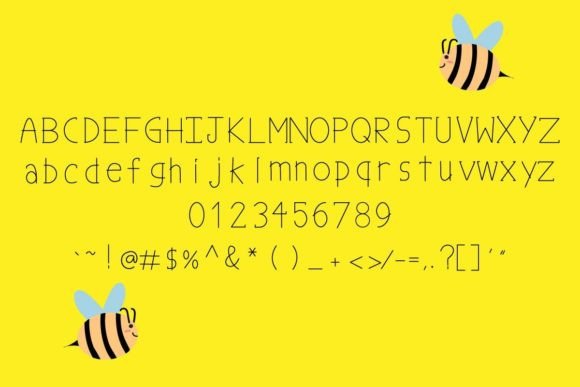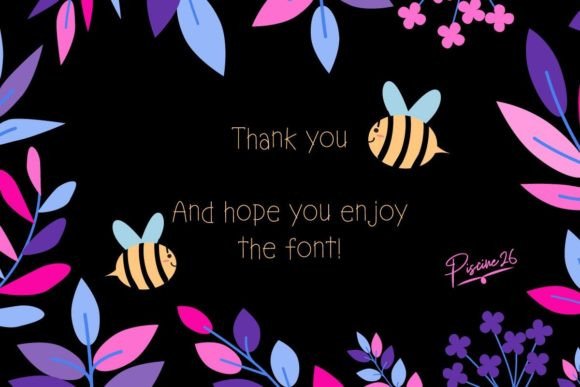
BSting Font: Add a Touch of Whimsy to Your Designs
Are you tired of using the same old fonts in your designs? Do you want to add a touch of personality and whimsy to your projects? Look no further than BSting, a cute, thin, and simple handwritten font that’s sure to make your work stand out. Inspired by the bee’s sting, BSting is the perfect choice for designers and crafters looking to add a little extra something special to their creations.
The Inspiration Behind BSting
BSting is more than just a font – it’s a statement. Inspired by the humble bee’s sting, this font is designed to give your projects that extra push they need to stand out from the competition. The bee’s sting is often seen as a symbol of creativity, industry, and community, making BSting the perfect choice for designers and crafters who want to add a touch of warmth and personality to their work.
What Makes BSting So Special?
So, what sets BSting apart from other fonts? Here are just a few things that make this font so special:
- Cute and playful: BSting is a font that’s sure to put a smile on your face. Its thin, handwritten lines and playful curves make it the perfect choice for designers and crafters who want to add a touch of whimsy to their work.
- Simple and elegant: Despite its playful nature, BSting is also a surprisingly elegant font. Its simple lines and classic curves make it perfect for use in a wide range of projects, from invitations and greeting cards to blog posts and social media graphics.
- Highly versatile: BSting is a font that’s suitable for use in a wide range of projects. Whether you’re designing a logo, creating a craft tutorial, or simply want to add a personal touch to your blog posts, BSting is the perfect choice.
How to Use BSting in Your Designs
So, how can you use BSting in your designs? Here are just a few ideas to get you started:
- Create cute and playful crafts: BSting is the perfect choice for crafters who want to add a personal touch to their creations. Use it to create cute and playful cards, gift tags, and other paper crafts.
- Add a personal touch to your blog posts: Want to add a little extra something special to your blog posts? Try using BSting to add a personal touch to your titles, headings, and other text elements.
- Design beautiful invitations: BSting is also a great choice for designers who want to create beautiful and unique invitations. Use it to create custom wedding invitations, birthday invitations, and other special occasion invitations.
Why Designers and Crafters Love BSting
So, why do designers and crafters love BSting? Here are just a few reasons:
- Easy to read: Despite its playful nature, BSting is also surprisingly easy to read. This makes it perfect for use in projects where you need to communicate a message clearly and effectively.
- Highly legible: BSting is also highly legible, even at small sizes. This makes it perfect for use in projects where you need to include a lot of text, such as blog posts and articles.
- Unique and eye-catching: Perhaps most importantly, BSting is a font that’s sure to grab attention. Its unique and eye-catching design makes it perfect for designers and crafters who want to stand out from the crowd.
Get Ready to Make Your Projects Pop with BSting
| Author | Piscine26 |
BSting is a cute, thin, and simple handwritten font that’s perfect for designers and crafters who want to add a touch of personality and whimsy to their projects. With its playful curves, simple lines, and highly versatile design, BSting is the perfect choice for anyone looking to make their work stand out from the competition. Whether you’re creating cute and playful crafts, designing beautiful invitations, or simply want to add a personal touch to your blog posts, BSting is the perfect choice. So why wait? Download BSting today and start creating!